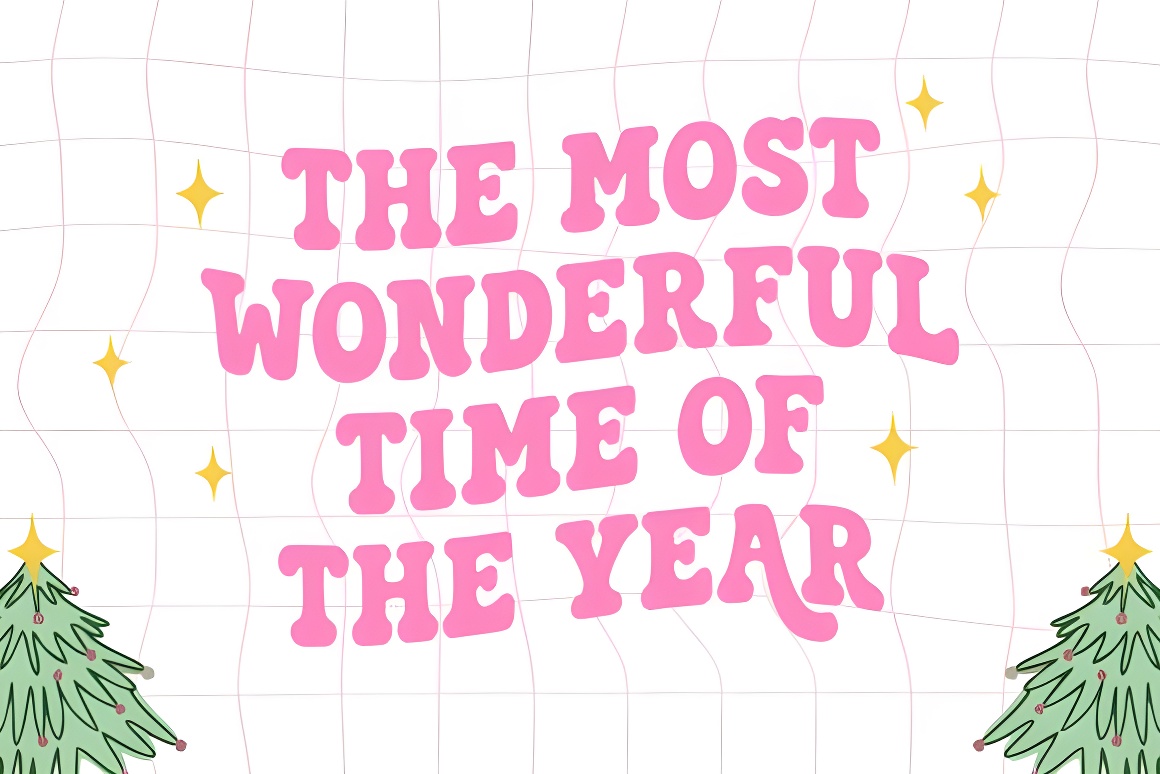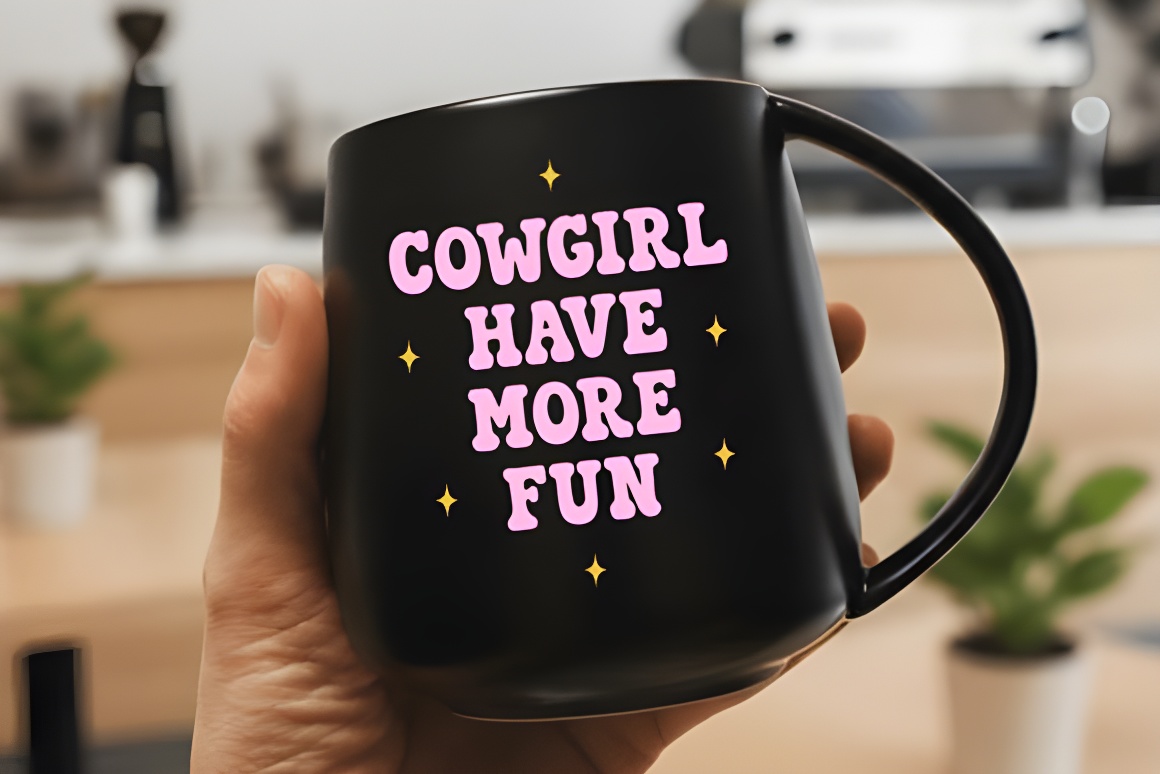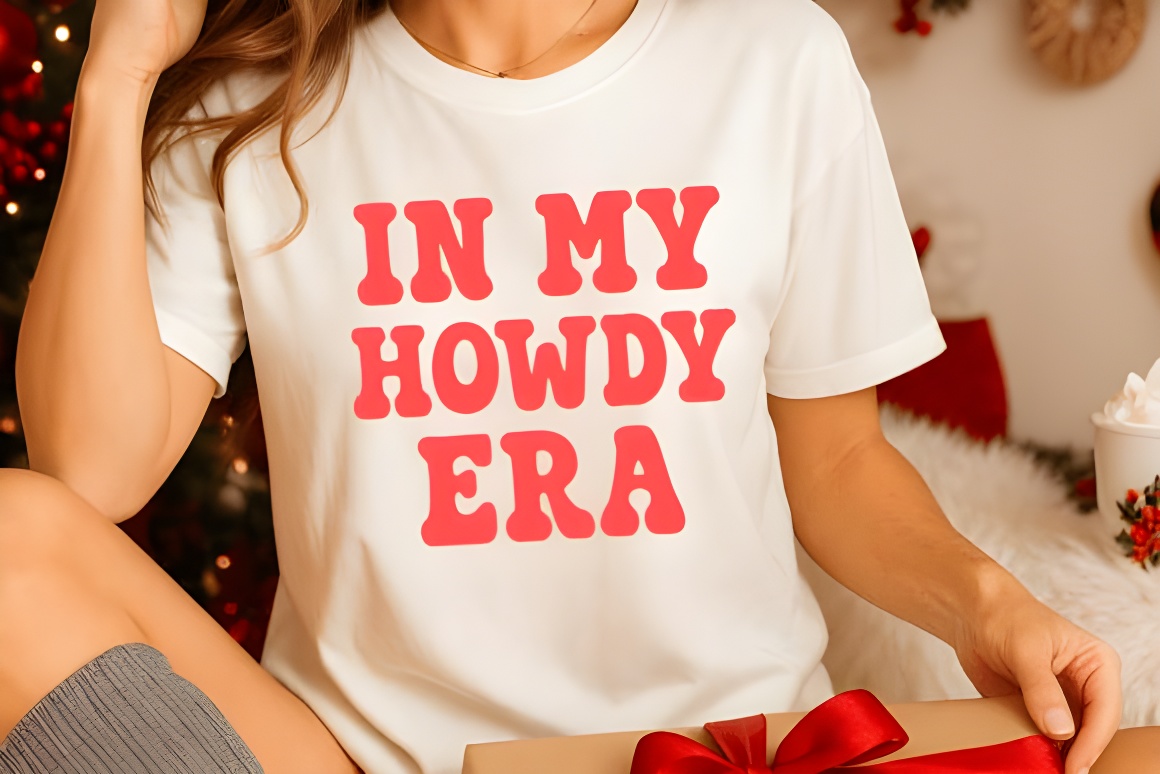
Howdy Christmas Vintage Font - Retro Holiday Display Typeface
Bold playful Christmas font with retro charm. Perfect for holiday cards, posters, T-shirts, crafts & decorations. Spread festive cheer with this eye-catching vintage display typeface!